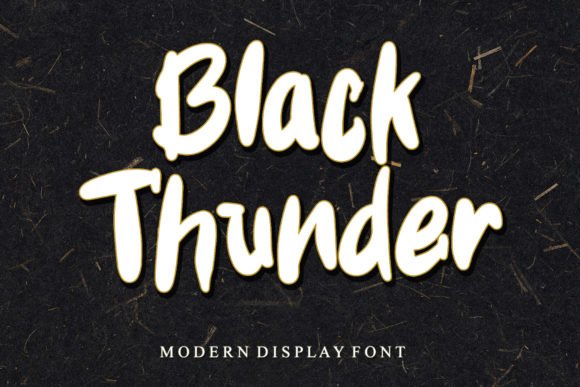
The Perfect Storm of Creativity: Unleashing the Power of Black Thunder Font
There’s something magical about sitting down with a blank canvas, surrounded by an array of colors and fonts, and letting your imagination run wild. It’s that moment of pure creativity when the possibilities seem endless, and the right font can make all the difference. For designers, the perfect font can elevate a project from ordinary to extraordinary, and that’s exactly what the Black Thunder Font is designed to do.
With its cool, trendy, and brushed display style, the Black Thunder Font is the perfect addition to any creative project. Whether you’re crafting, designing digitally, or creating presentations, this font has the potential to become your go-to choice for any occasion. Its versatility and unique style make it a valuable asset for designers looking to add a touch of sophistication and flair to their work.
Black Thunder Font Key Features
- Unique Characteristics: Black Thunder Font features a bold, distressed design with a mix of modern and vintage elements, making it suitable for various design applications.
- Font Style: The font has 3 styles: Regular, Bold, and Italic, providing flexibility for designers to choose the right style for their project.
Black Thunder Font Review
Overall, I’m impressed with the Black Thunder Font. It has a unique, edgy look that’s perfect for modern designs. ✨
The font’s bold lines and sharp angles give it a sense of dynamism, making it ideal for headings and titles. The font’s weight and contrast work well together, creating a visually appealing effect. ✨
Here are some specific things that work well:
- Excellent for modern and edgy designs
- Highly readable, even at smaller font sizes
- Works well for headings and titles
- Has a unique, distinctive look that sets it apart from other fonts
- May not be suitable for traditional or classic designs
- Can be difficult to use for long blocks of text, due to its bold and angular design
- May not be easily legible at very small font sizes
The font can be a bit too bold for some designs, so use it sparingly and with caution.
Overall, I think Black Thunder Font is a great addition to any designer’s toolkit. With its unique look and high level of readability, it’s perfect for modern designs and headings. Just be mindful of its limitations and use it thoughtfully.
For best results, use the Black Thunder font in bold or italic styles to add emphasis to your text.
Use the Black Thunder font to create bold, eye-catching titles and headings in your designs.
Use the Black Thunder font to add a touch of sophistication to your presentations and documents.
The Black Thunder font is ideal for:
- Bold, eye-catching titles and headings.
- Creating a sense of drama or tension in your designs.
- Adding a touch of sophistication to your presentations and documents.
Remember to use the Black Thunder font in moderation, as it can be quite bold and attention-grabbing.